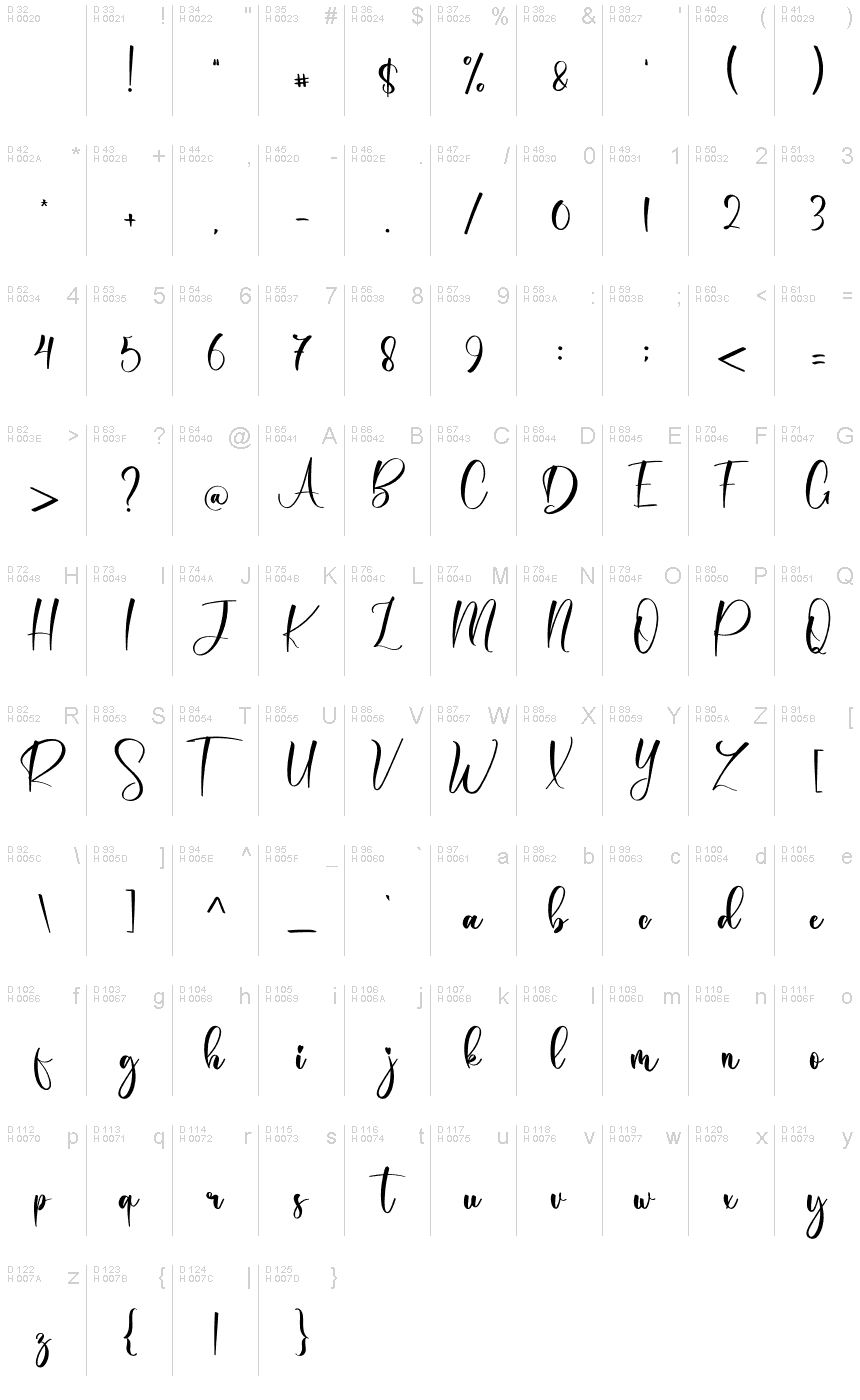
Daisy Butterfly
Daisy Butterfly is a stunning semi-light calligraphy font designed by FreshtypeINK. Its delicate curves and flowing lines create an elegant and feminine feel, making it perfect for wedding invitations, greeting cards, and other formal events. However, its playful nature also makes it suitable for more whimsical projects such as children's book covers or branding for a florist or beauty salon. With its unique style and eye-catching appeal, Daisy Butterfly is sure to make any design project stand out from the crowd.